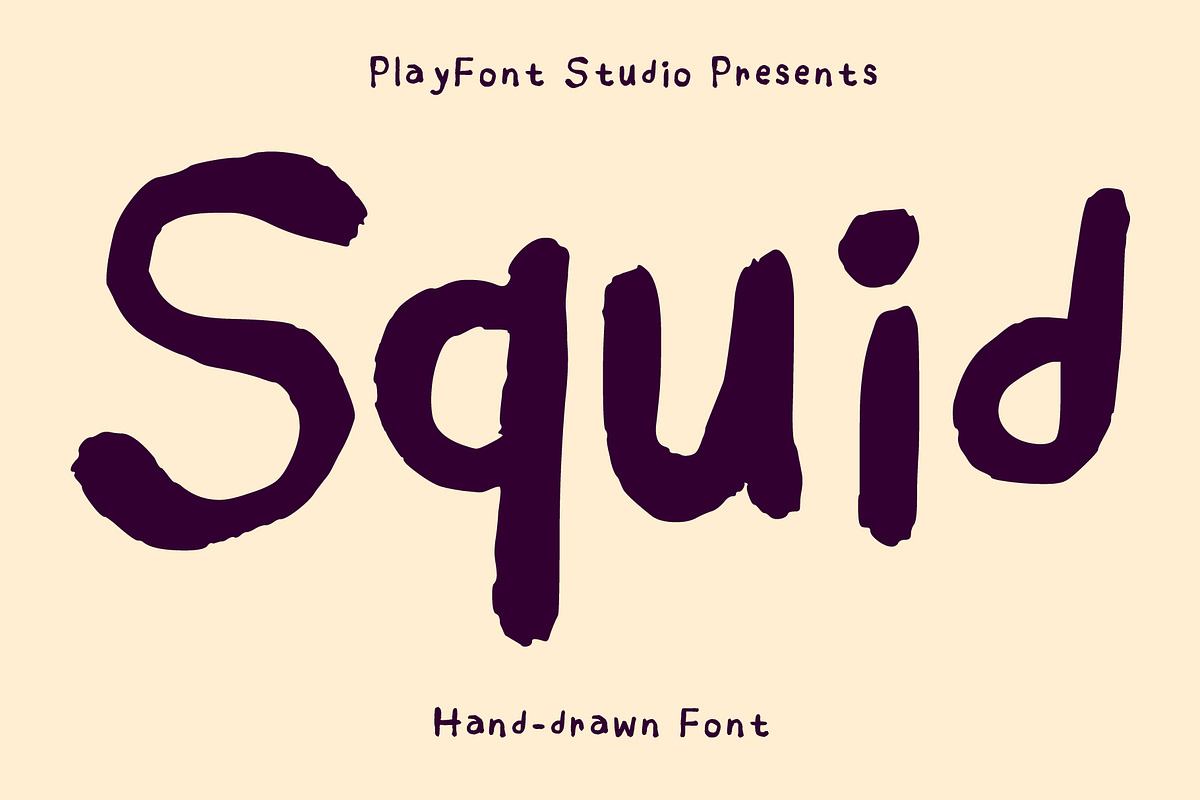
Squid - A Handmade Typeface Free Download
Please note, to use this font for commercial purposes, you must purchase the full version. Squid is a charming handmade typeface that brings a personal and organic touch to your designs. With its unique, hand-drawn letterforms, this font is perfect for logos, branding, invitations, and creative projects that need a rustic, artistic feel. Whether you're designing for a creative brand, a special event, or a personalized product, Squid adds warmth and character to your work. Test it out and enjoy free download access for personal use. Experience the authentic, handmade style of Squid - A Handmade Typeface Free Download before purchasing the commercial license. Add a handcrafted, artistic touch to your designs with Squid.